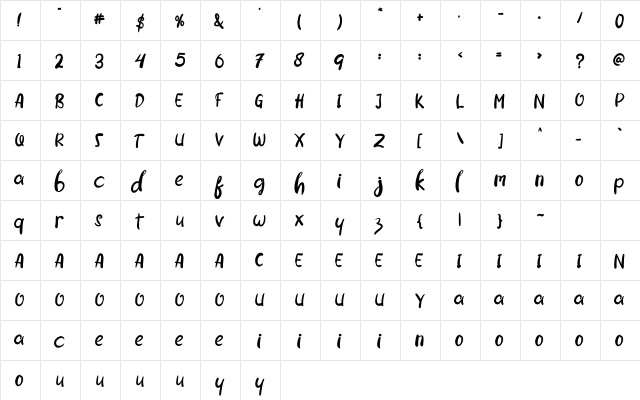
Halloween Pumpkin Regular
Design Context for Halloween Pumpkin Typeface
Halloween Pumpkin is a composed and adaptable typeface that performs quietly and consistently across a wide range of design contexts.